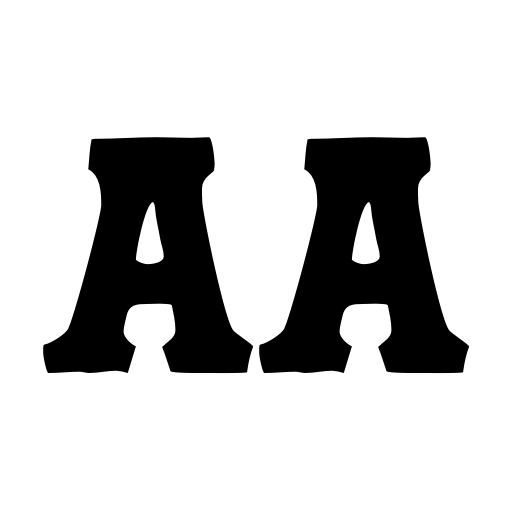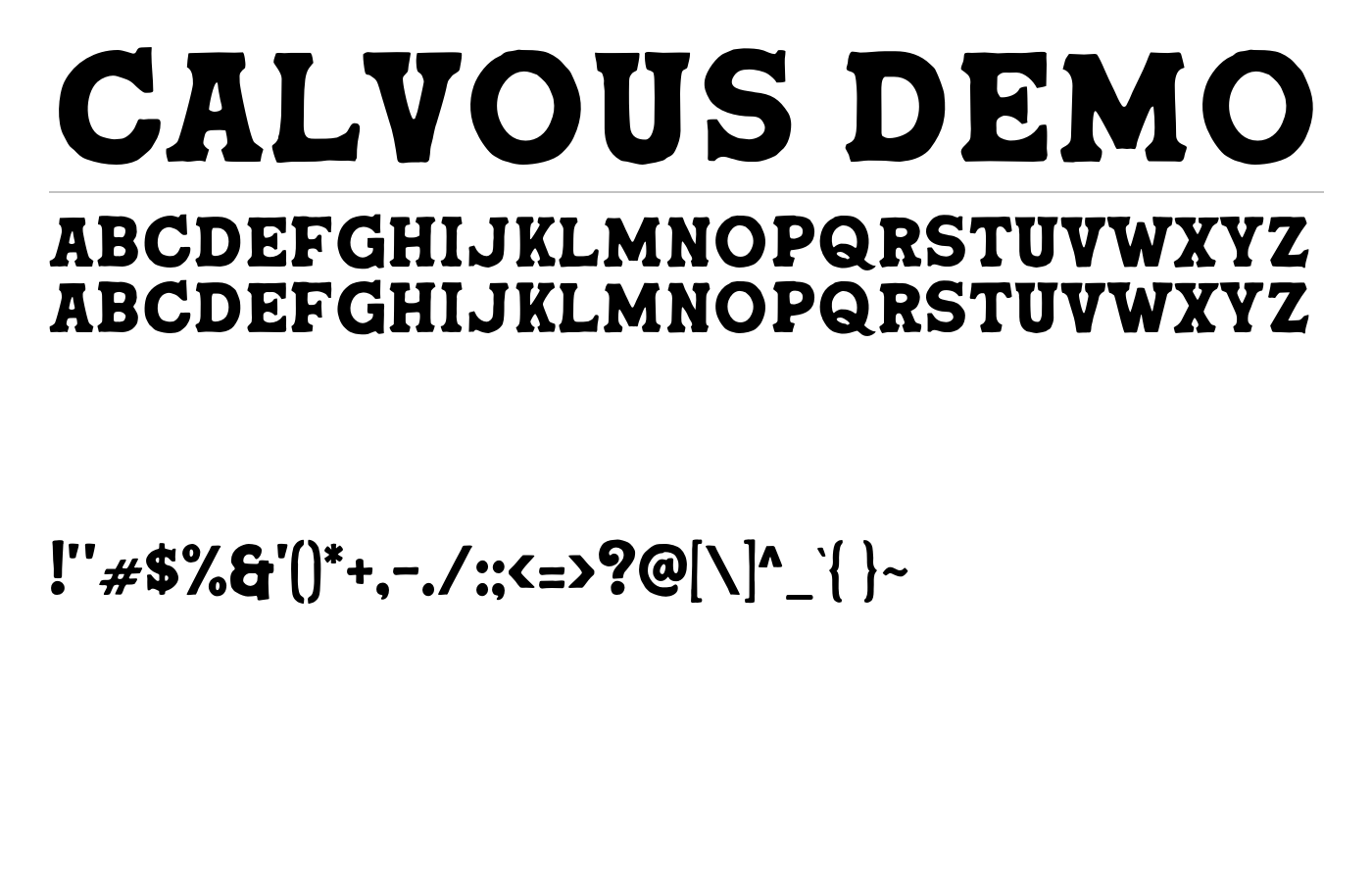
Calvous DEMO is a bold, slab serif font with a strong, slightly playful character, featuring thick, blocky serifs and a sturdy, compact structure. Its high contrast and chunky letterforms give it a vintage yet energetic feel, making it ideal for eye-catching headlines, posters, and branding that seeks a confident, rustic charm. This font works especially well in contexts where a bold statement is needed to convey strength with a touch of personality.
Calvous DEMO Font
About Calvous DEMO Font